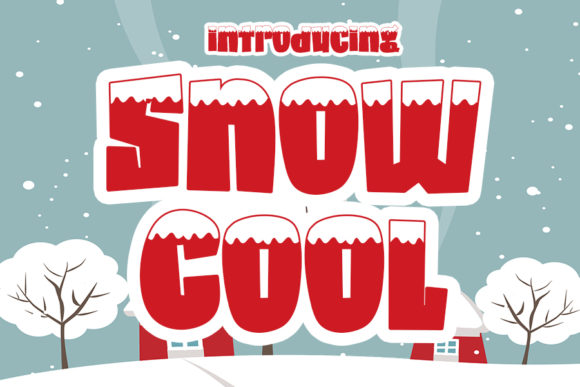
Snow Cool: A Designer's Real-World Review
When I first pulled the Snow Cool typeface into my workspace, I wasn't looking for another generic display font. As a designer who has sifted through thousands of digital assets, I know that finding a premium font with genuine character is rare. Snow Cool immediately signaled a distinct visual personality. It feels crisp, slightly icy, yet undeniably modern. The letterforms possess a geometric backbone softened by playful curves, creating a mood that is both refreshing and approachable. This is not a font that screams for attention in a chaotic way; instead, it whispers confidence. It belongs to projects that need to feel curated, seasonal, or simply elevated without relying on clichés.
The First Impression: Mood and Visual Personality
In the world of modern typography, the initial hook is everything. Snow Cool delivers an immediate sense of clarity. The strokes are balanced, avoiding the thinness that often plagues decorative styles while maintaining enough detail to feel special. When I set it against a stark white background, the contrast was striking. The font exudes a cool, collected energy, making it ideal for brands that want to project professionalism mixed with creativity. It does not feel like a temporary trend; it feels like a staple for a brand identity that values aesthetics as much as function. Whether you are a small business owner launching a new line or a content creator building a portfolio, this typeface offers a level of polish that elevates the entire design.
Performance in Real-Life Design Scenarios
A font is only as good as its performance under pressure. I tested Snow Cool across a variety of real-world applications to see where it truly shines. In logo design, the font held up remarkably well. The unique shapes of the characters allowed for custom modifications without losing legibility. For a recent client in the wellness space, I used Snow Cool for their primary mark, and the result was a brand identity that felt both organic and structured. It worked beautifully on packaging design as well. On product labels, the font commanded respect, ensuring the product name stood out on crowded shelves. The weight of the letters provided enough presence to be read from a distance, yet the details remained sharp when viewed up close.
I also explored its potential in editorial design and web design. As a header for blog posts or magazine spreads, Snow Cool created a strong hierarchy. It guided the reader's eye naturally to the most important information. For social media graphics, the font became a versatile tool. Whether designing Instagram stories, Pinterest pins, or Facebook ads, the typeface maintained its integrity across different aspect ratios. Even in printable design projects, such as invitations or flyers, the font translated perfectly from screen to paper. The kerning remained consistent, and the edges stayed crisp during high-resolution printing. For those using Canva templates or creating digital products, Snow Cool adds a layer of sophistication that separates amateur work from professional deliverables.
Merchandise and Craft Projects
One area where Snow Cool truly excels is in merchandise and craft applications. I tested it on mockups for t-shirts, mugs, and tote bags. The bold nature of the Display style made it perfect for apparel, where visibility is key. For Cricut projects and other DIY endeavors, the font cut cleanly without losing its delicate features. It is a creative font that appeals to makers who want their physical products to look professionally branded. If you are a digital seller offering design assets, including Snow Cool in your bundles can significantly increase the perceived value of your package.
Navigating Limitations: Where Caution is Needed
While Snow Cool is a powerhouse, it is not a one-size-fits-all solution. As a display font, its primary strength lies in large headlines and short phrases. I advise against using it for long paragraphs of body text. The intricate details that make it charming at 48 points become muddy and difficult to read at 10 points. In situations requiring dense information, such as terms and conditions or lengthy descriptions, a simple sans serif font is a better choice. Snow Cool should be treated as a highlighter, not the main narrative voice. Use it for quotes, decorative accents, and brand marks where impact matters more than volume.
Readability is the cornerstone of effective communication. When testing Snow Cool, I found that it affects audience trust based on how it is deployed. If overused, the playful elements can undermine the seriousness of a message. However, when paired correctly, it enhances engagement by breaking the monotony of standard text. It creates a visual rhythm that keeps the viewer interested. For premium packaging or high-end marketing visuals, the font conveys a sense of exclusivity. But for supporting text, it risks distracting the user. Always prioritize clarity over decoration when the goal is to inform rather than inspire.
Practical Designer Notes for Implementation
To get the most out of Snow Cool, you must treat it with the same care you would any high-value asset. Start by testing it in black and white. This strips away color distractions and reveals the true structure of the letters. Check the readability at small sizes; if the counters (the enclosed spaces in letters like 'a' or 'e') close up too tightly, adjust the tracking or switch to a simpler alternative for that specific context. Try the font on real mockups before finalizing a design. Seeing it on a bottle, a billboard, or a mobile screen provides insights that a static screen cannot.
Font pairing is another critical step. Snow Cool pairs exceptionally well with a neutral sans serif font for body copy, creating a clean, modern look. For a more editorial feel, try pairing it with a classic serif font to create a contrast between old and new. Avoid pairing it with another script font or handwritten font, as the two will compete for attention and create visual clutter. Instead, let Snow Cool stand alone as the star, supported by understated companions. Always review the spacing carefully; sometimes adding a few pixels of extra tracking can make the difference between a cramped mess and a polished headline.